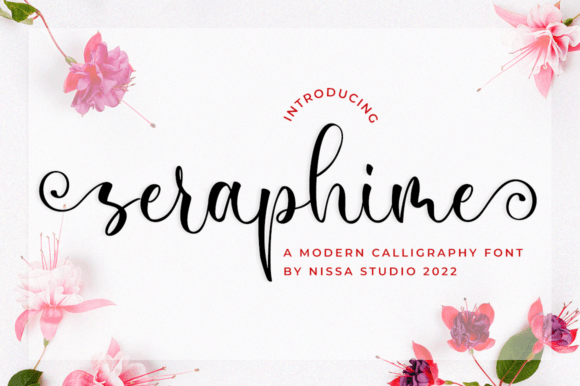
Unleash the Allure of Seraphime: A Script Font of Enchantment for Web Design
Awaken your creative spirit with Seraphime, a captivating script font that dances across the digital canvas with grace and elegance. Inspired by the beauty of handwritten letters, Seraphime is more than just a font; it's an artistic expression that brings a touch of sophistication to your web design projects.
Immerse yourself in a world of visual delight as Seraphime's flowing lines and delicate curves weave a captivating tapestry of typography. Each letter is a work of art, meticulously crafted to evoke emotions and create a lasting impact on your audience. Whether you're designing wedding invitations, branding materials, or social media graphics, Seraphime adds an undeniable charm that elevates your designs to new heights.
With Seraphime, you'll embark on a creative journey where imagination knows no bounds. Its versatility knows no limits, allowing you to effortlessly express your unique style and vision. Create logos that exude elegance, headers that command attention, and body text that flows with a rhythmic grace. Seraphime is the perfect font for crafting designs that speak to the heart and leave an indelible mark on the minds of your visitors.
Step into the realm of creativity and let Seraphime be your muse. Its PUA-encoded nature makes accessing glyphs and swashes a breeze, empowering you to add intricate details and flourishes that elevate your designs to the next level. The varying baseline, smooth lines, and stunning alternates provide endless possibilities for customization, ensuring that your designs stand out from the ordinary and captivate the attention of all who behold them.
Don't settle for mediocrity; embrace the extraordinary with Seraphime. This enchanting script font is your gateway to a world of visual artistry, where your designs will blossom into masterpieces that captivate and inspire. Experience the transformative power of Seraphime today and unlock the boundless potential of your creativity.